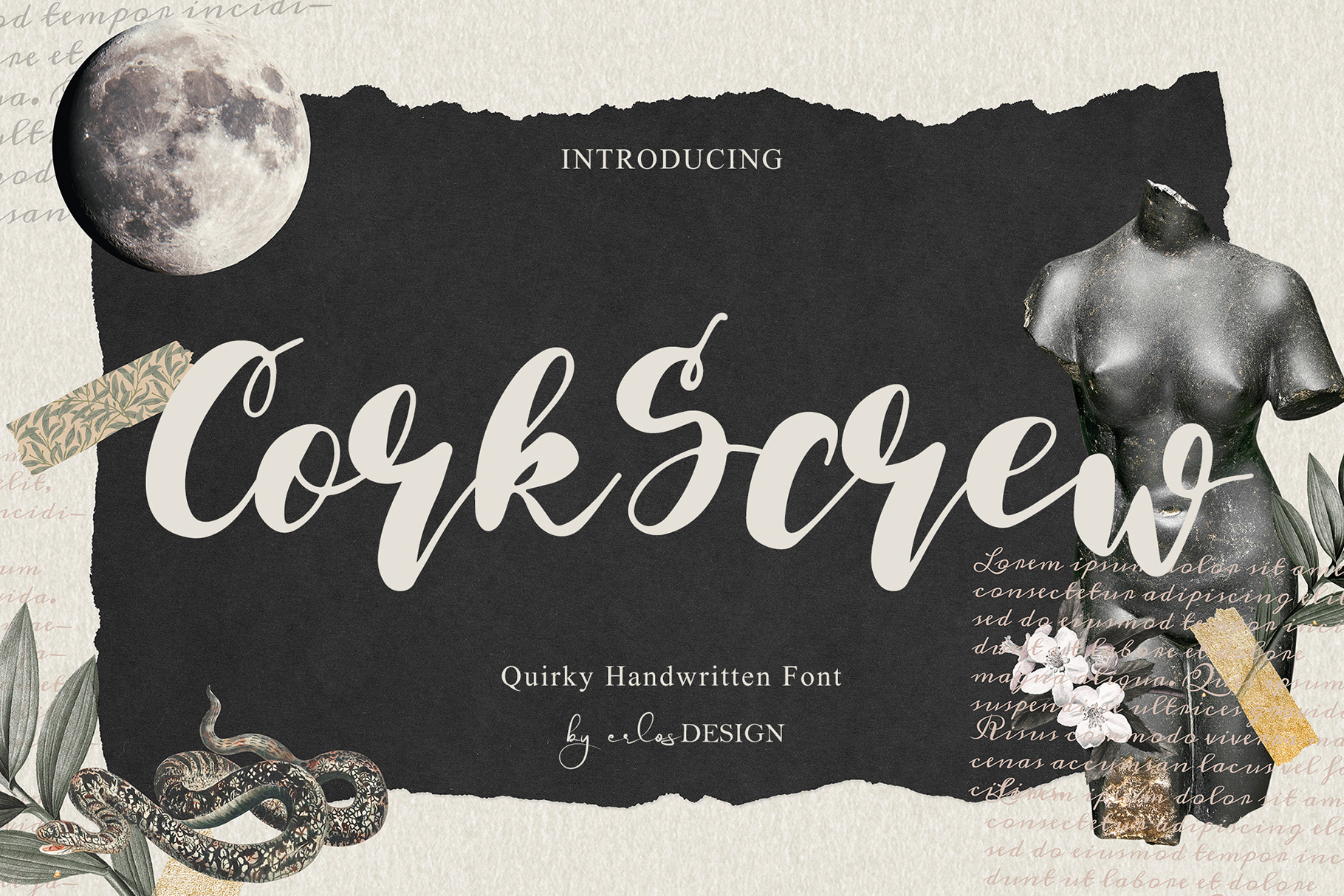
CorkScrew - Quirky Handwritten Font
CorkScrew - Quirky Handwritten Font by erlosDESIGN
CorkScrew is quirky calligraphy script, with swash and extra doodle. It can be used for various purposes such as headings, logos, birthday invitation, t-shirt, letterhead, posters and much more.